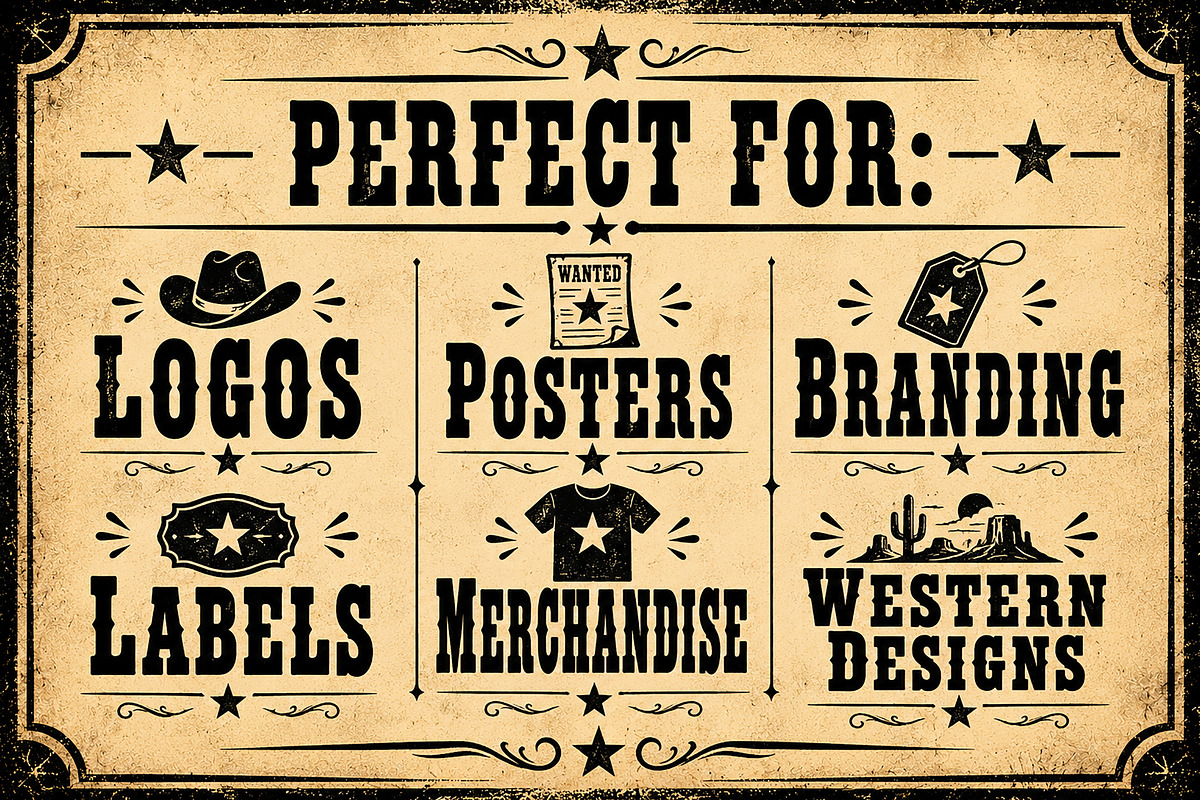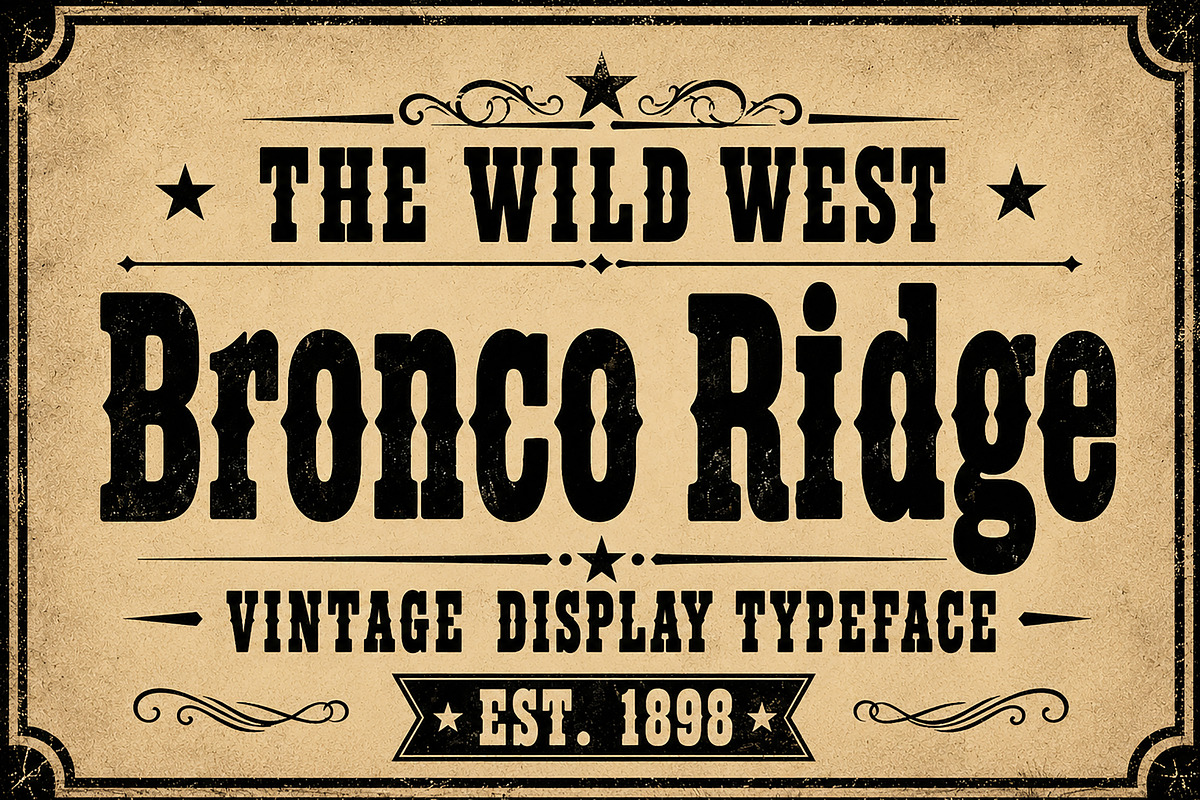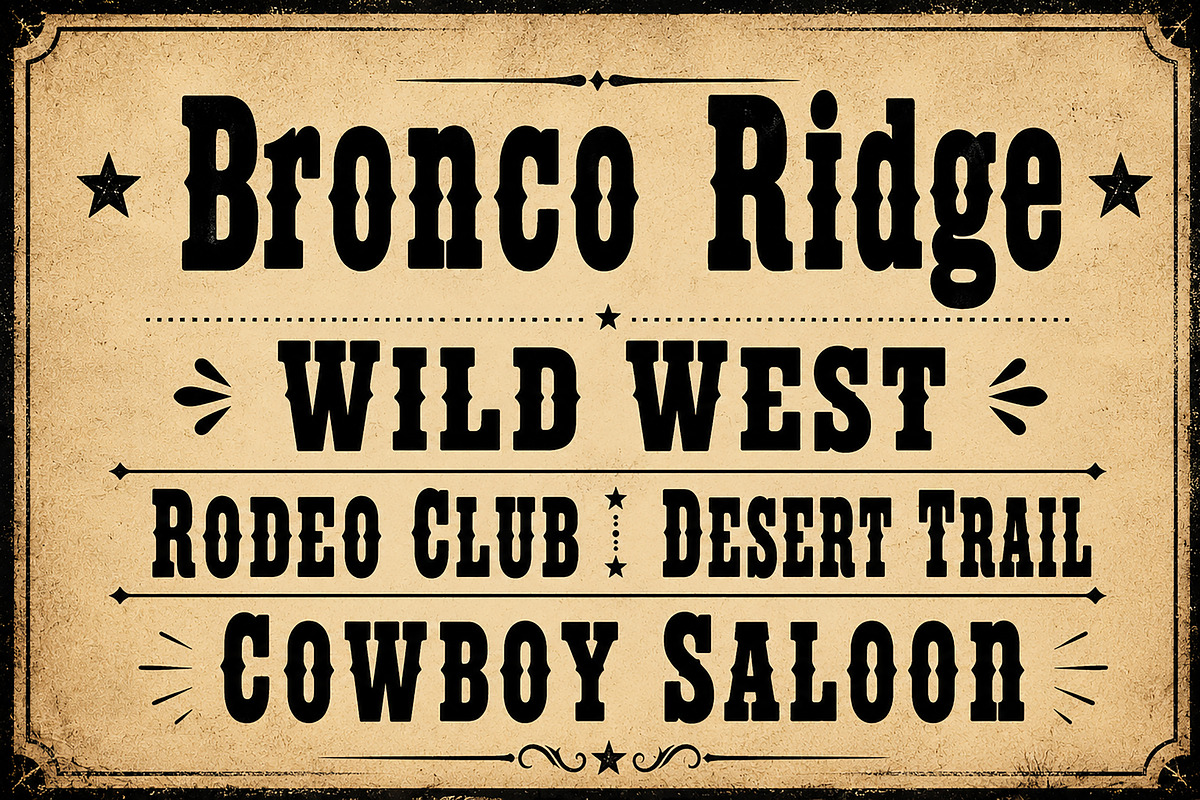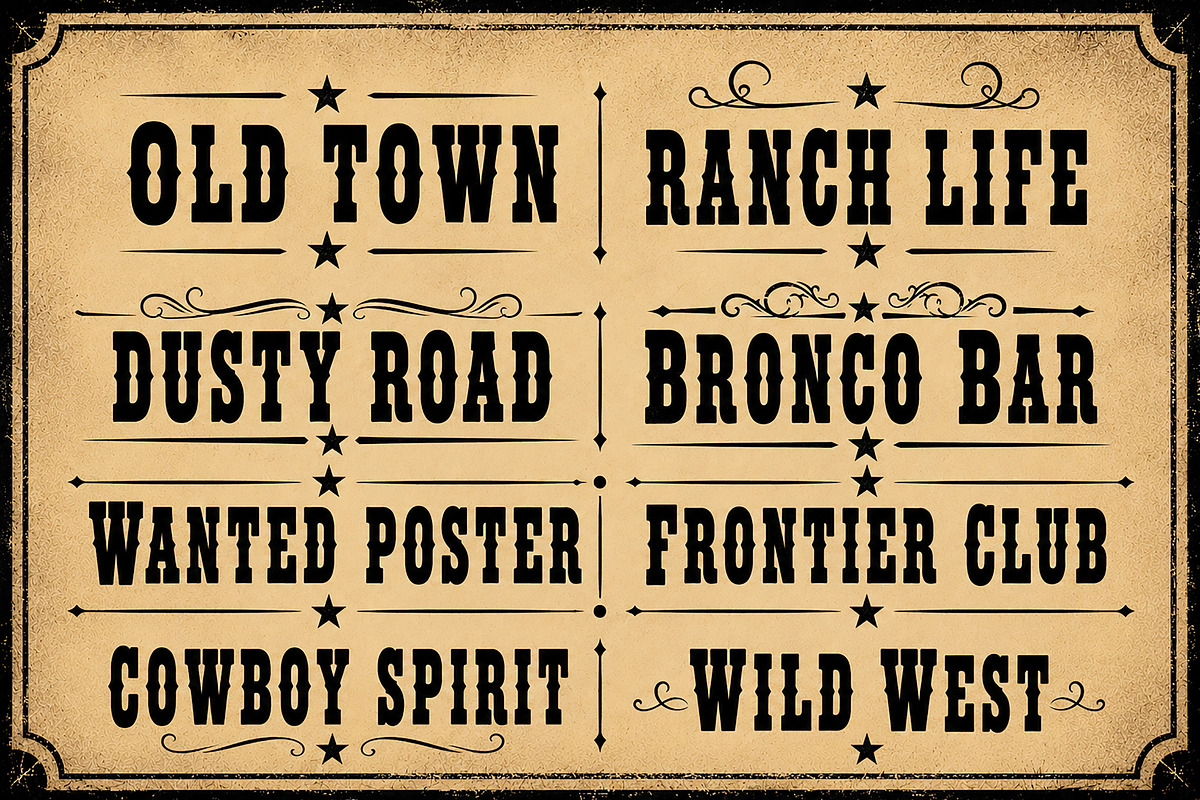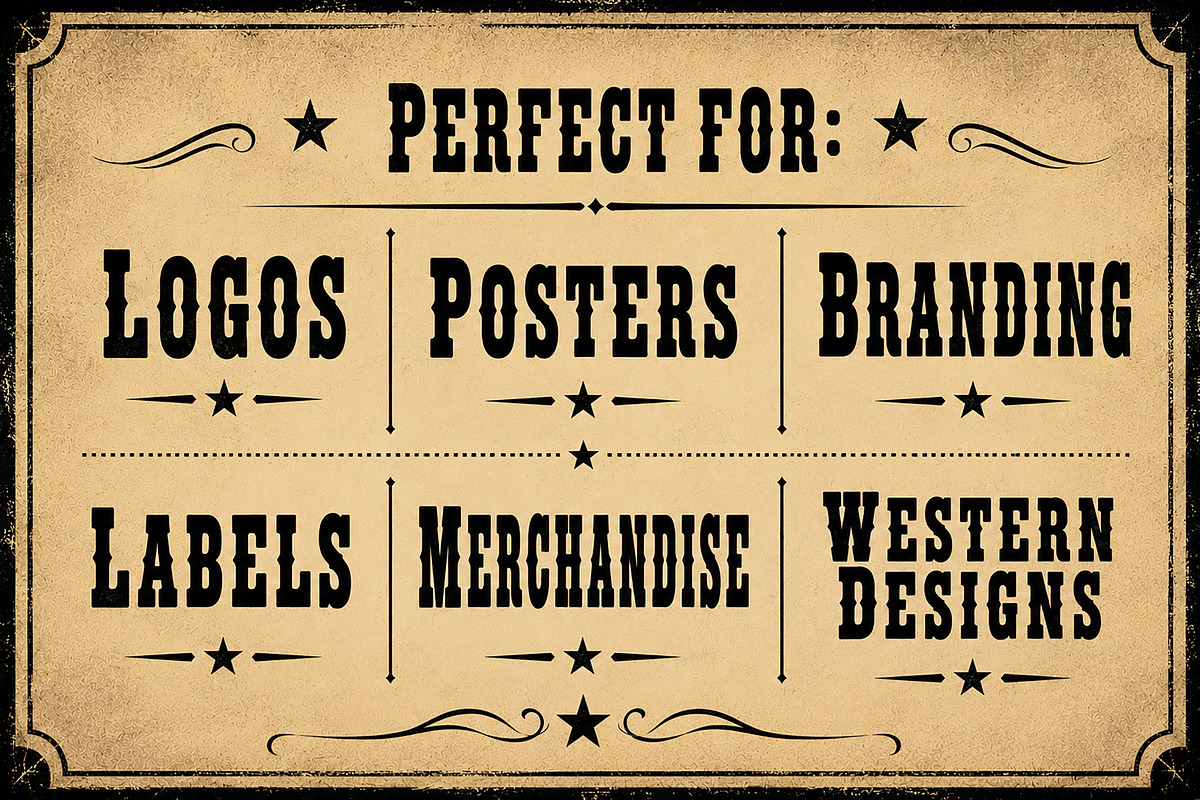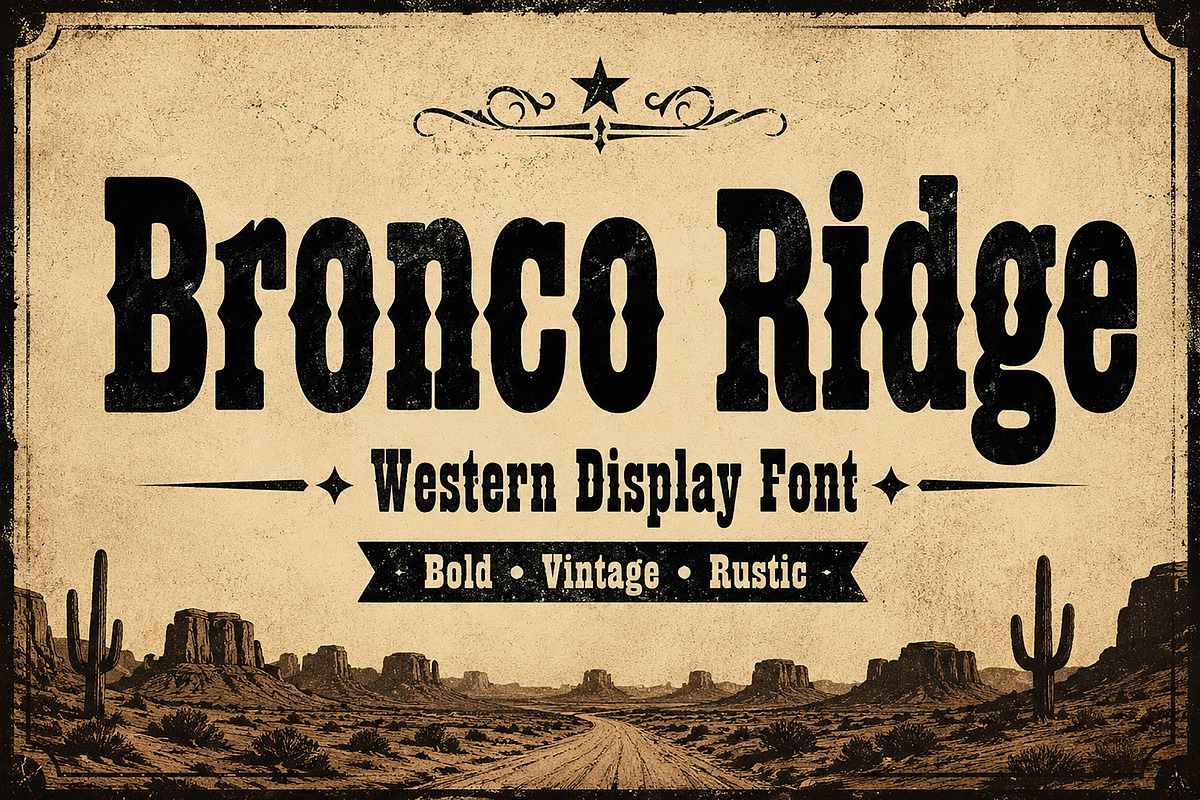
Bronco Ridge
Bronco Ridge is a bold Western display font inspired by classic cowboy culture, vintage saloon signs, old frontier posters, and rustic Americana typography. Featuring strong slab-serif letterforms with authentic Western character, this typeface delivers a rugged, timeless look that's perfect for creating eye-catching designs.
Whether you're designing a vintage logo, rodeo branding, whiskey labels, country apparel, or Wild West-inspired posters, Bronco Ridge adds bold personality and authentic frontier charm to every project.
Designed for creatives who love rustic aesthetics, this font is ideal for branding, packaging, merchandise, and editorial designs that need a strong Western identity.
Western Logos
Vintage Branding
Cowboy & Rodeo Designs
Saloon Signs
Whiskey & Beer Labels
Ranch Branding
Country Apparel
T-Shirt Designs
Posters & Flyers
Stickers
Badge Design
Headlines
Outdoor Adventure Branding
Bold Western Display Style
Vintage Cowboy Aesthetic
Uppercase Characters
Numbers & Basic Punctuation
High Readability for Large Headlines
Why You'll Love Bronco Ridge
Bring the spirit of the American frontier into your creative projects with a font that combines vintage authenticity, bold character, and modern usability. Whether you're creating branding, apparel, posters, or packaging, Bronco Ridge is built to make your designs stand out with unmistakable Western style.